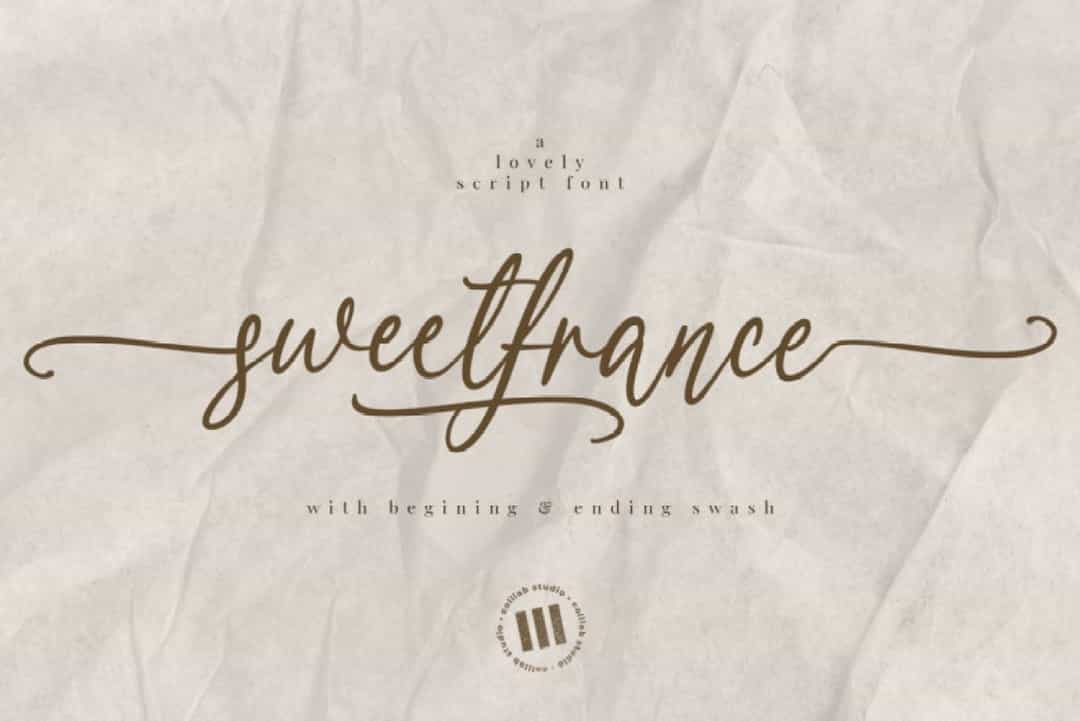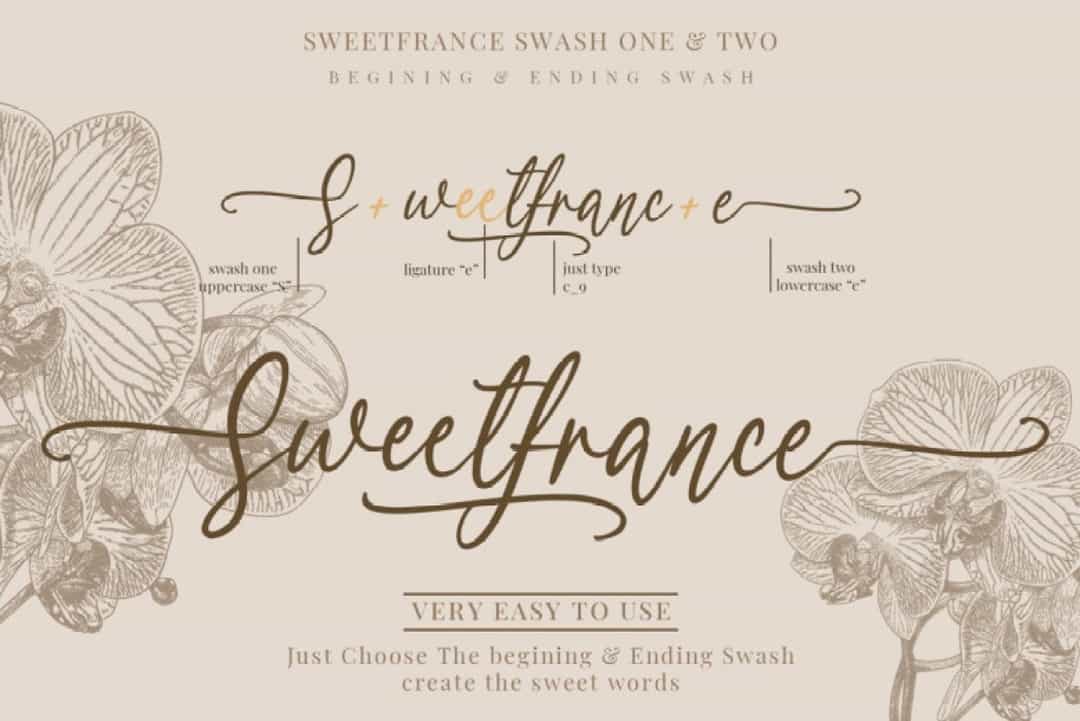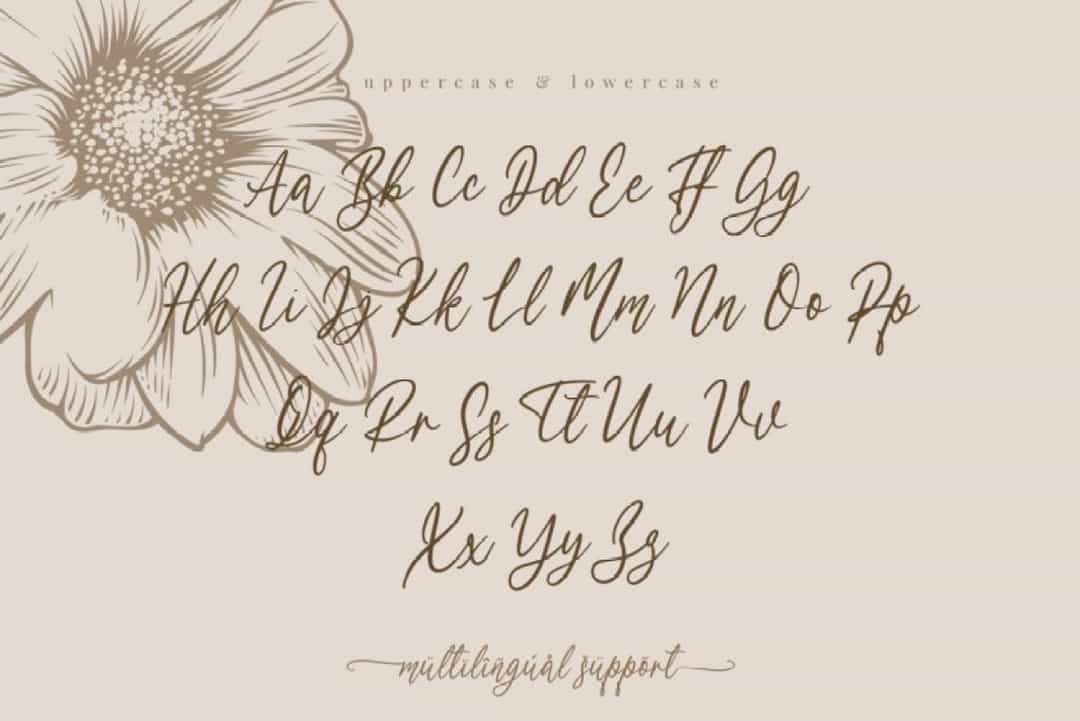
Sweetfrance is a beautiful script font that comes in a well-crafted design that exudes the modern fashion style. Sweetfrance is all that is feminine yet elegant and could light up any background – be it a busy one or a single headline.